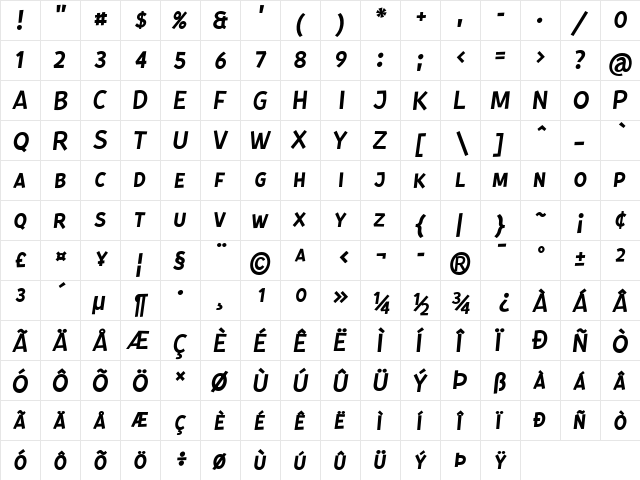
Kurri Island Caps Italics Regular
Design Context for Kurri Island Caps Italics Typeface
Kurri Island Caps Italics offers clean, dependable letterforms without strong stylistic allegiance, making it a practical choice for designers who need flexibility. The dynamic lean of this cut emphasises speed and emphasis in any layout.
Pro Tip: Use Kurri Island Caps Italics for emphasis, pull quotes, and subheadings where its slanted energy can add rhythm to the layout.